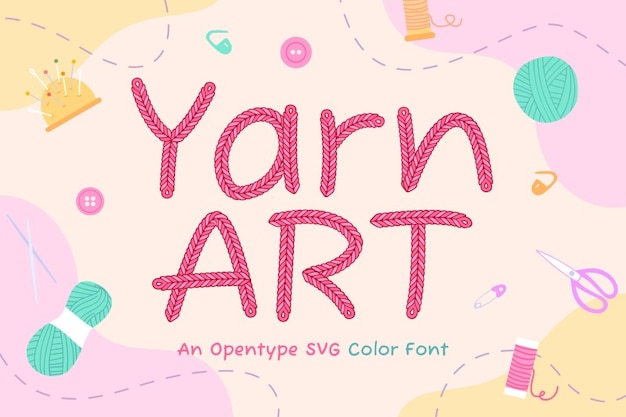
"Yarn Art" font weaves the essence of crochet and sewing into simple yet charming letters. Inspired by the craft of yarnwork, each character embodies the beauty of simplicity and creativity. Perfect for designs seeking to evoke the warmth and familiarity of handmade creations, infusing them with a touch of cozy charm.